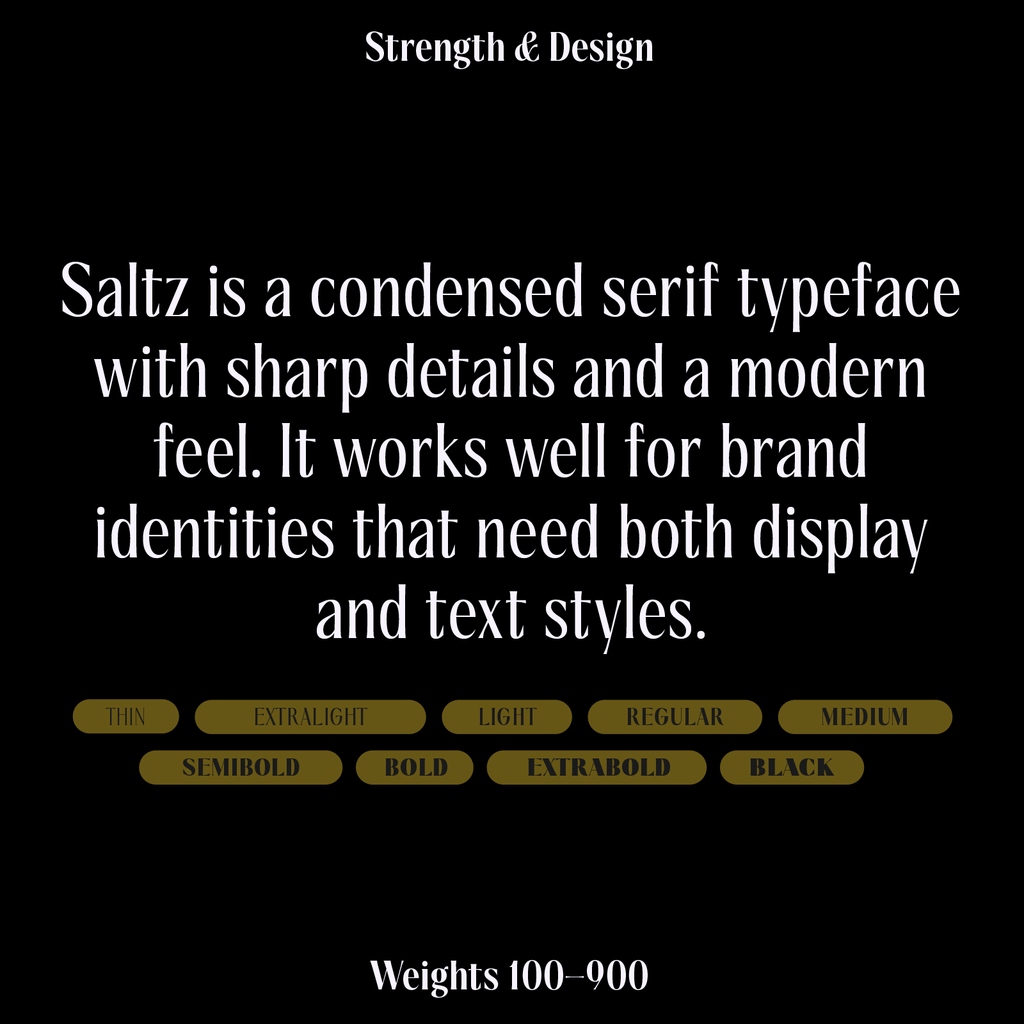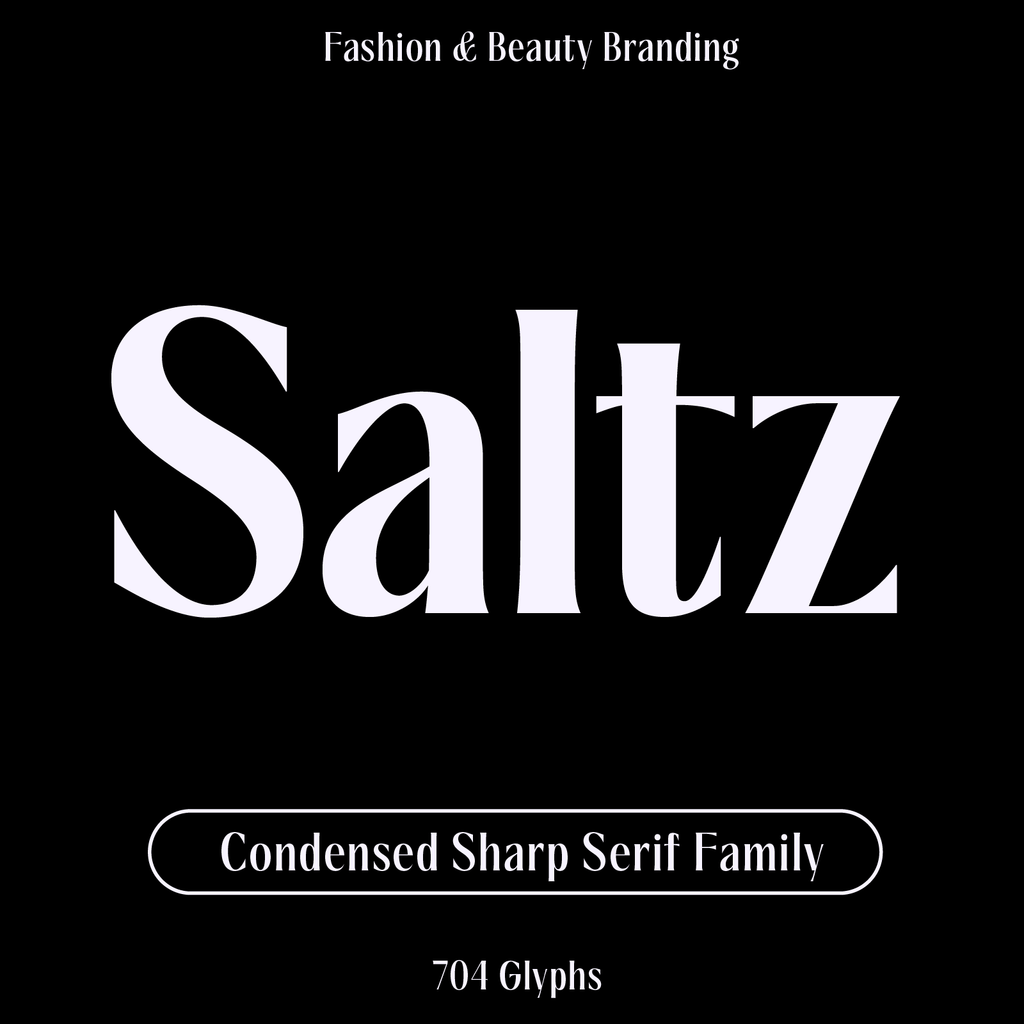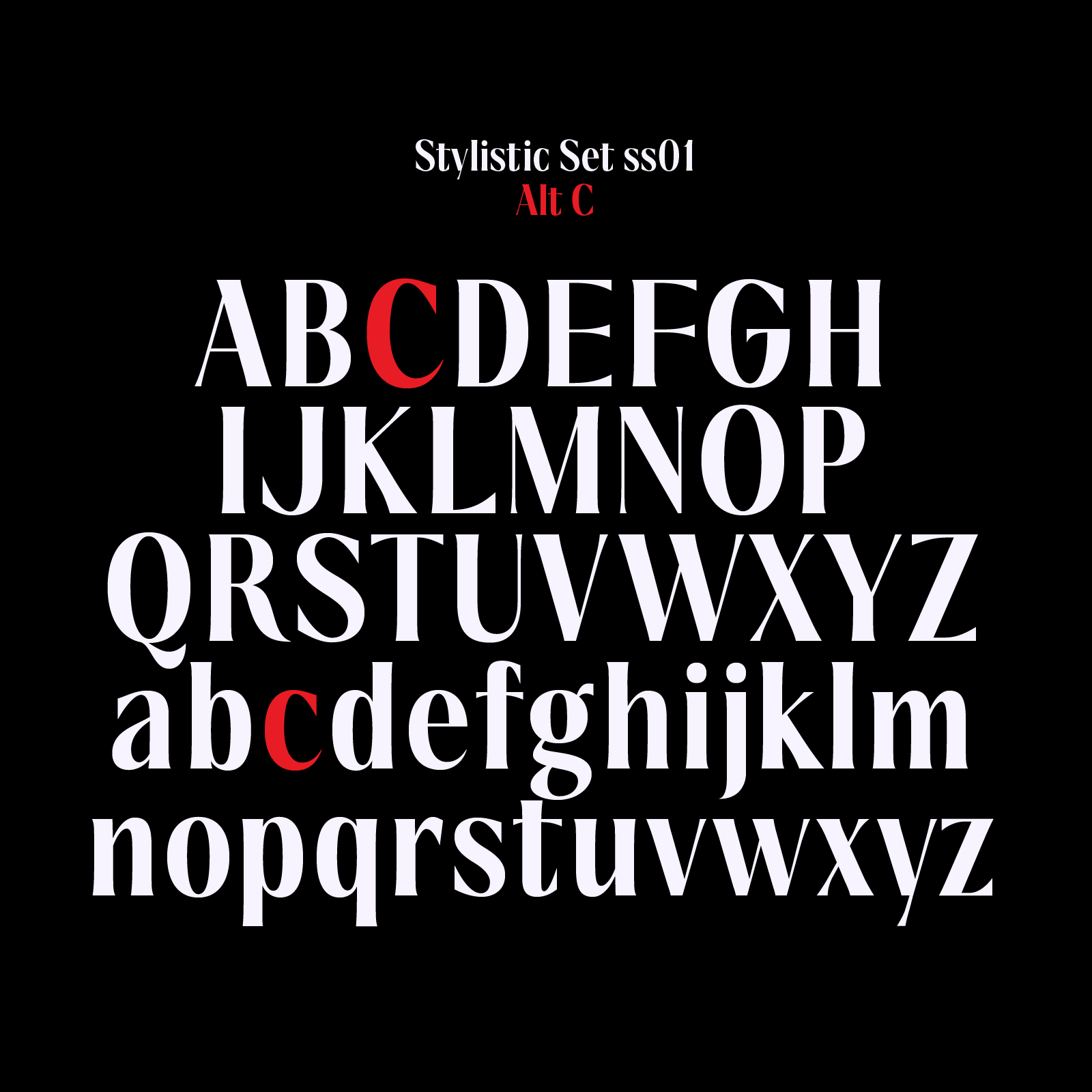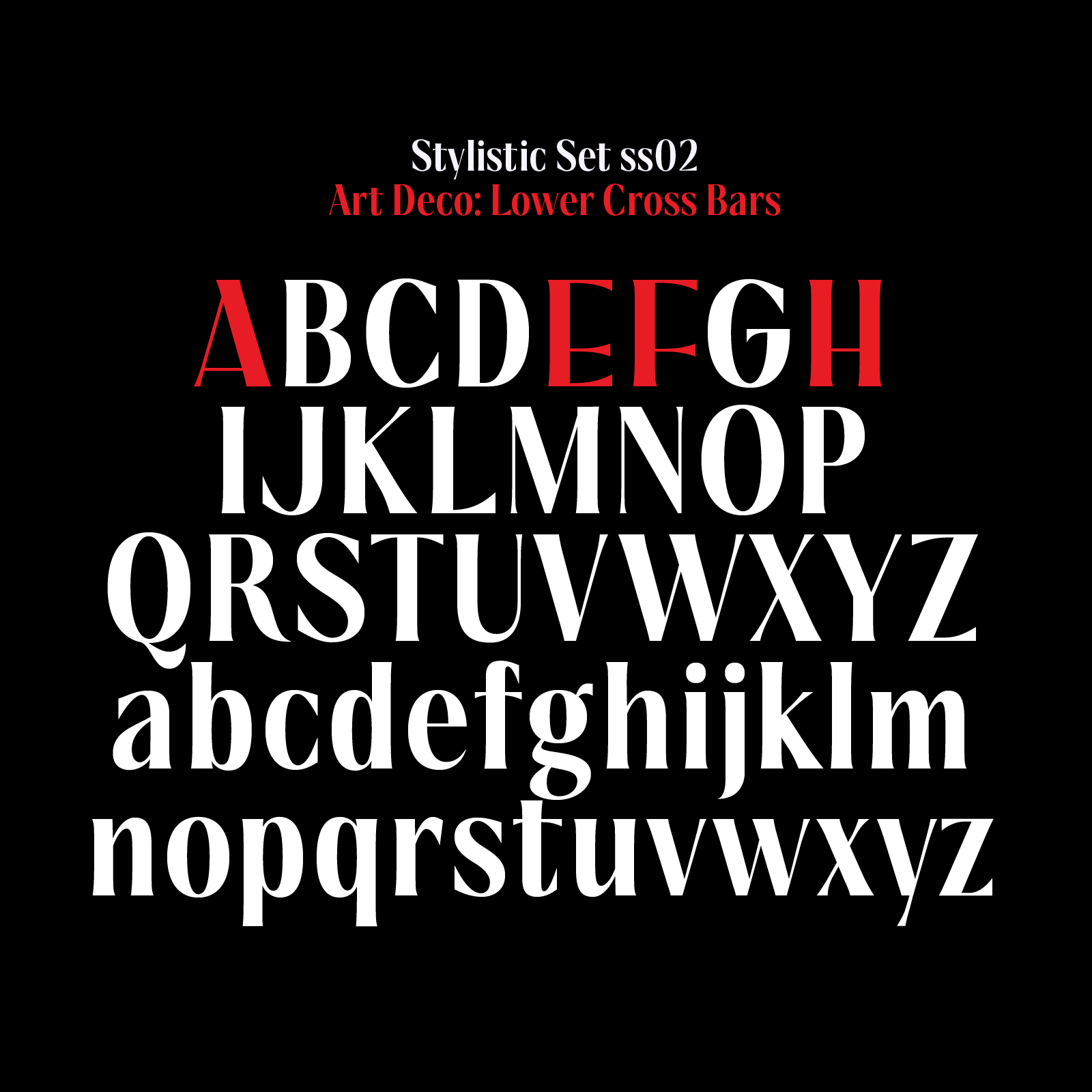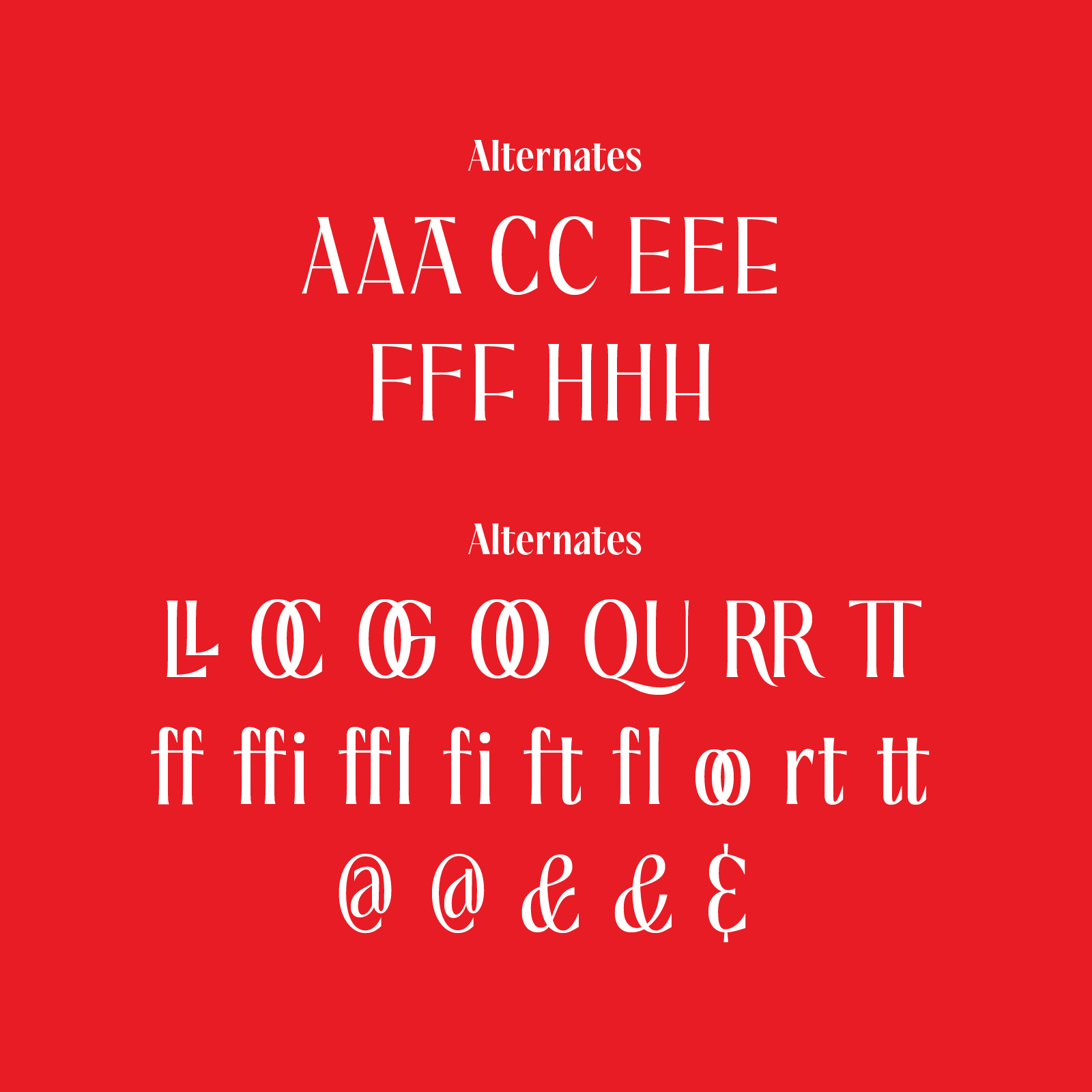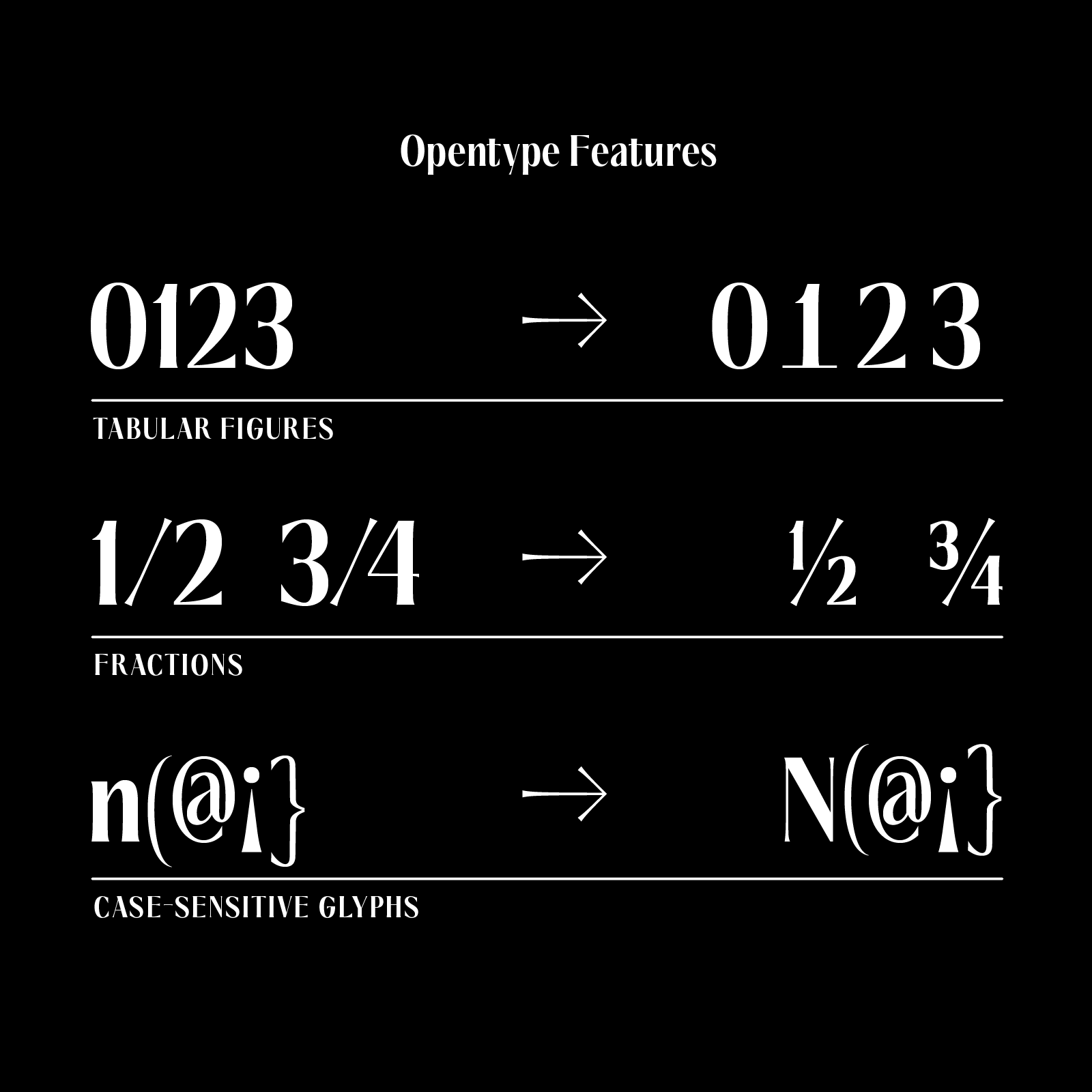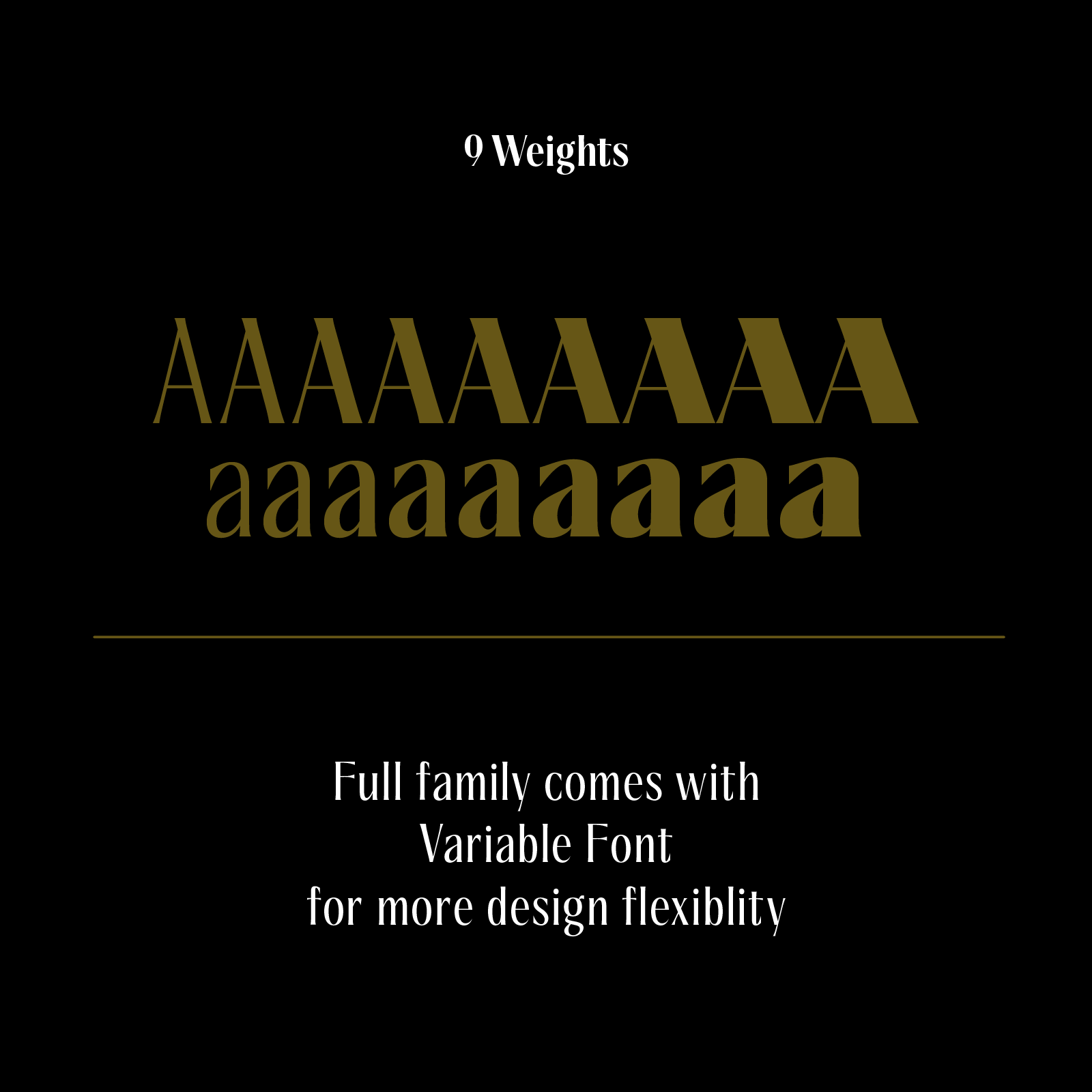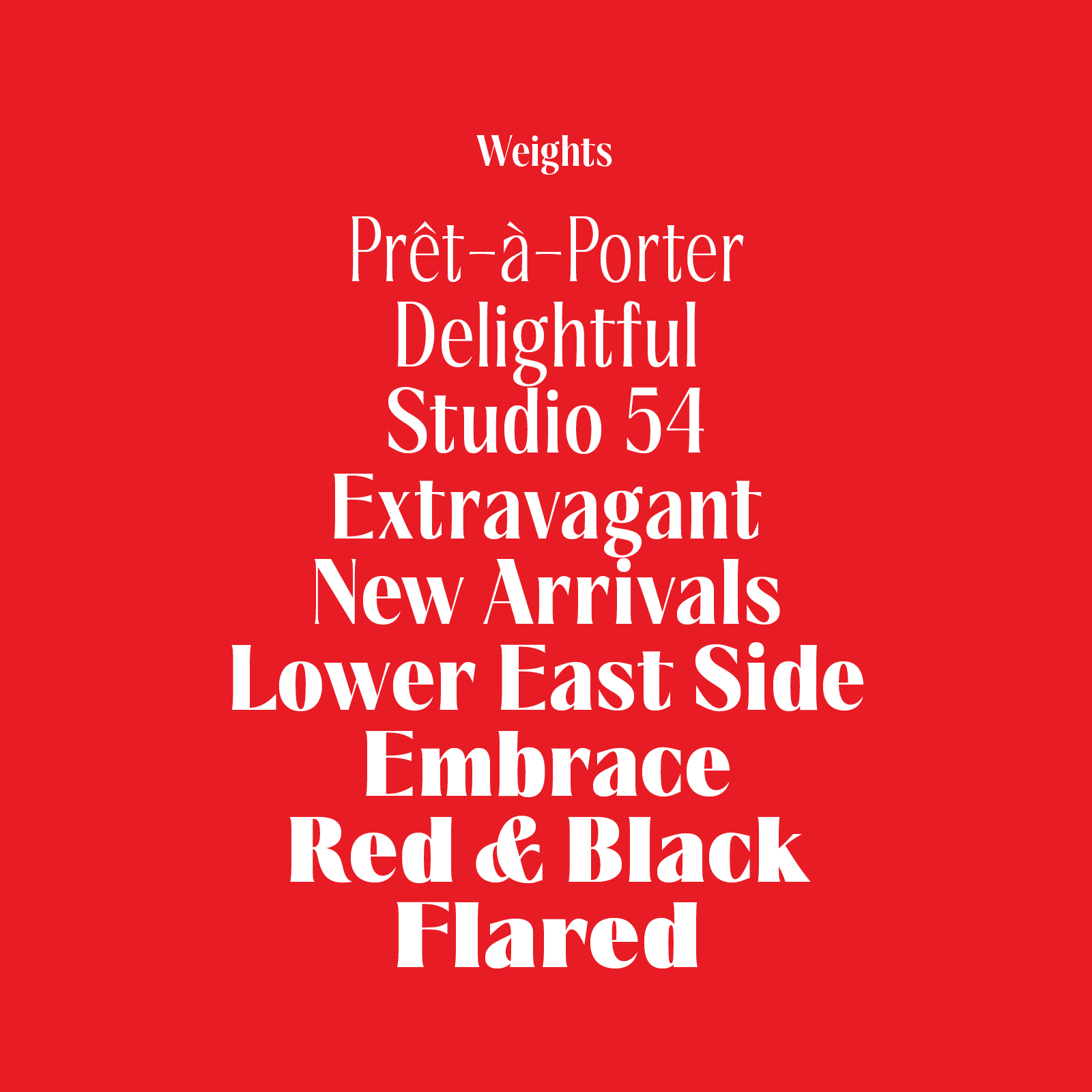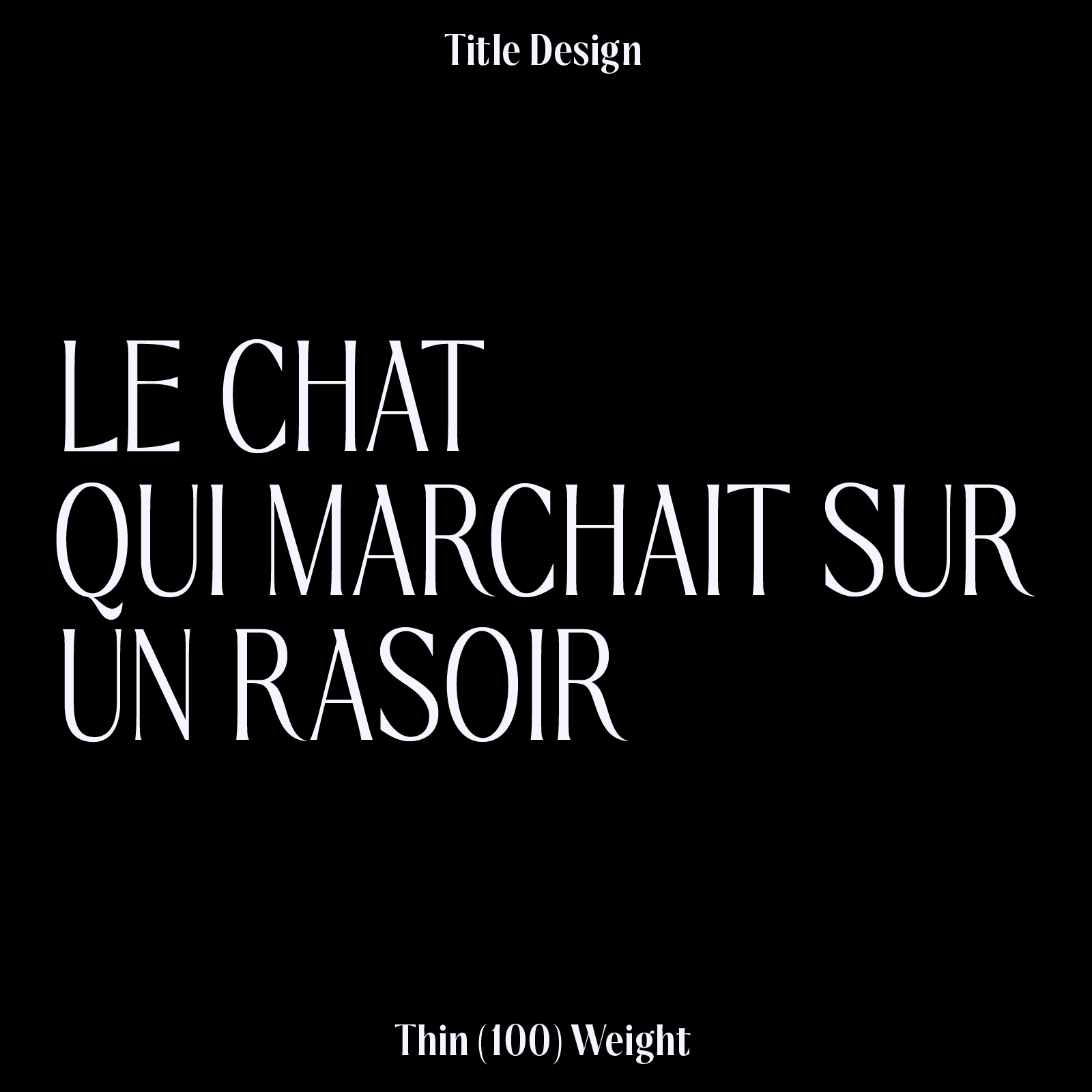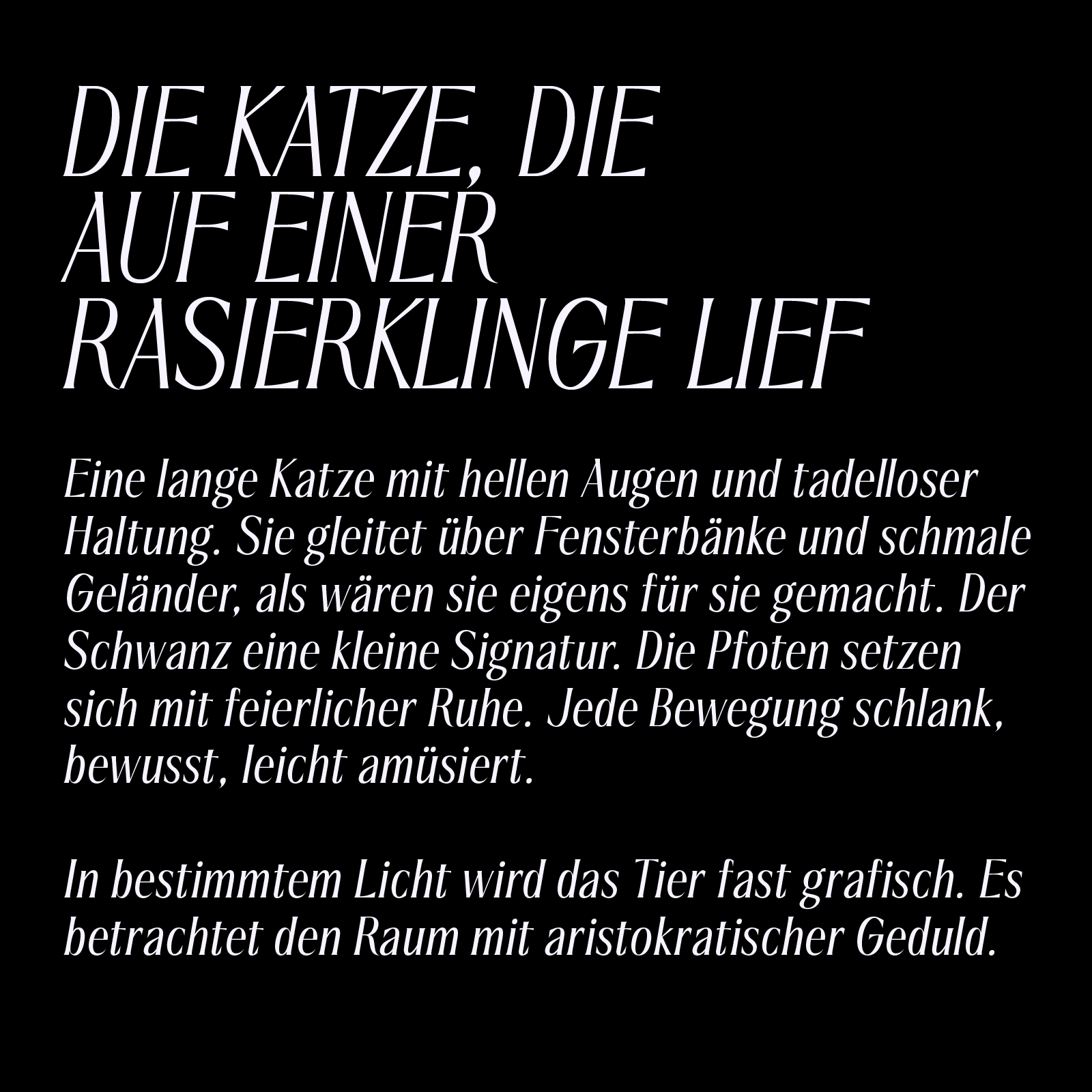
Saltz Serif—Sharp Condensed Font for Fashion & Beauty Branding
Saltz is a condensed serif font with sharp terminals and elegant tapered terminals. The narrow proportions give the letters a tall look that works well in headlines and longer copy. Details such as the pointed cuts in J, L, a, c, f, r, s, and t add character, with a slight gothic edge, while the R and Q stay warm and classic. The terminals include a small curved notch that repeats across the alphabet and gives the design its signature. Saltz works well for fashion, beauty, editorial, and darker, more atmospheric branding.